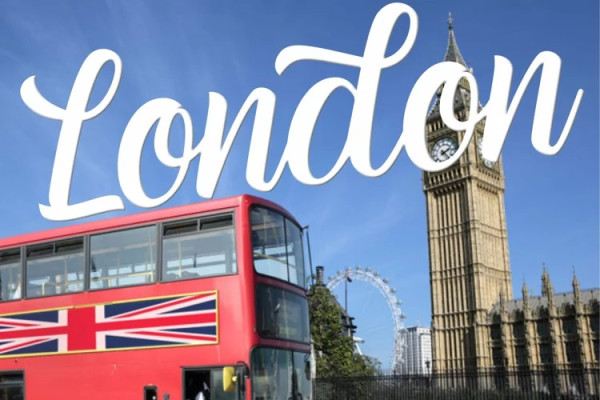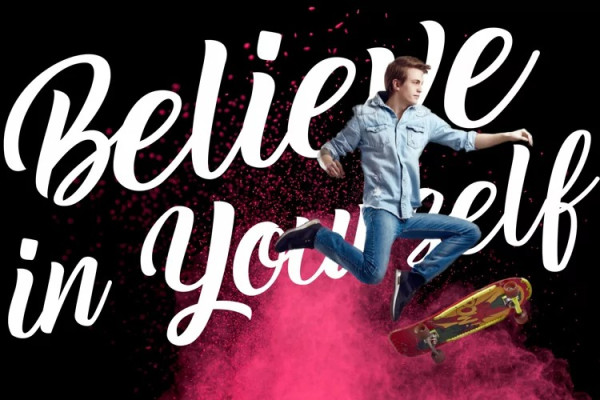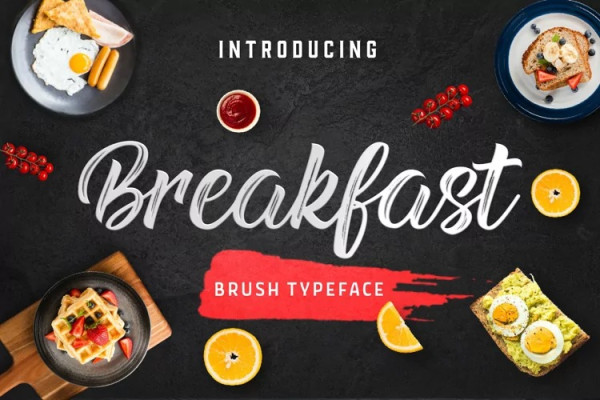
Breakfast Font
Breakfast Font is a fun and dynamic script that radiates authenticity. Fall in love with its timeless charm!
include 2 style regular dan distrassed.